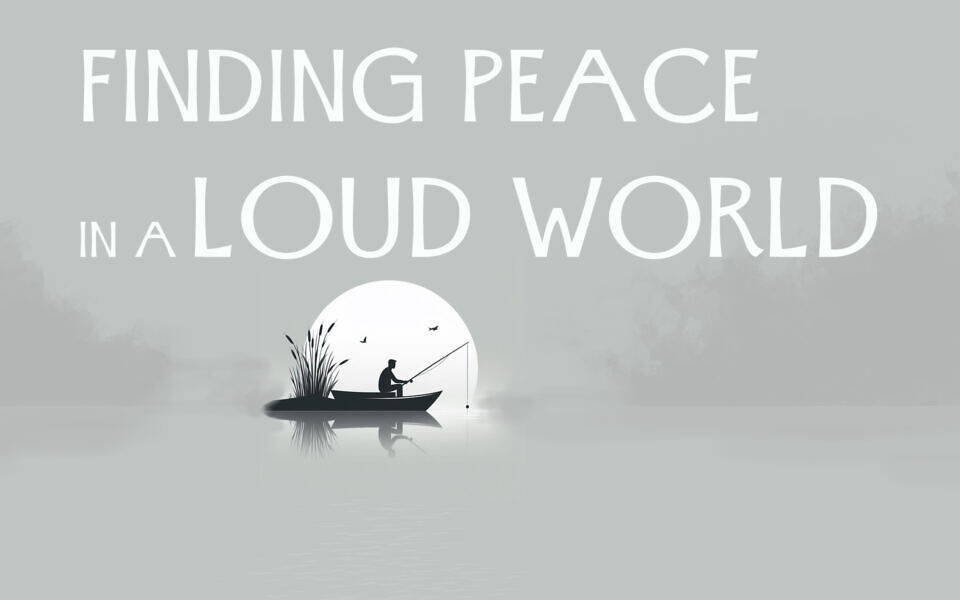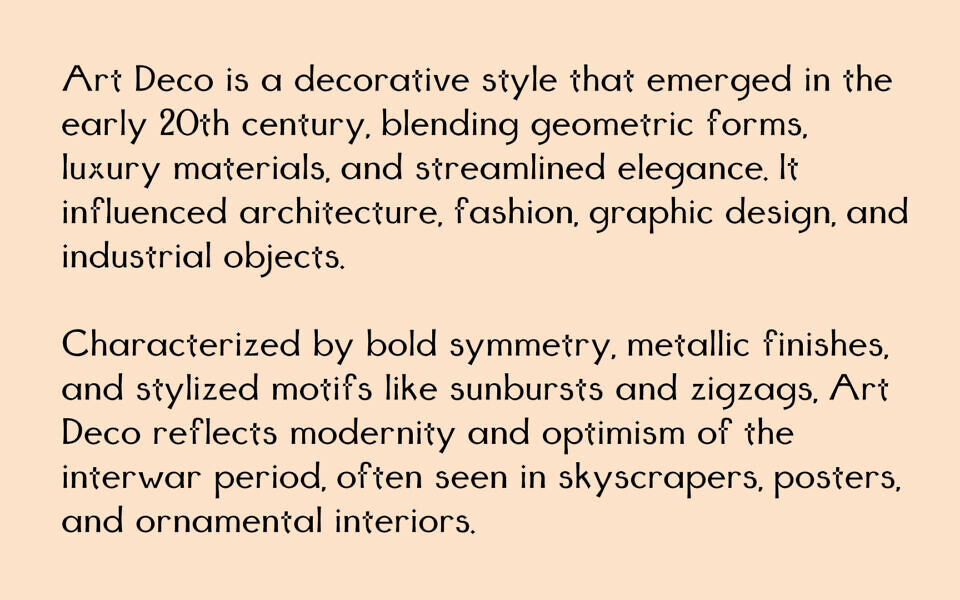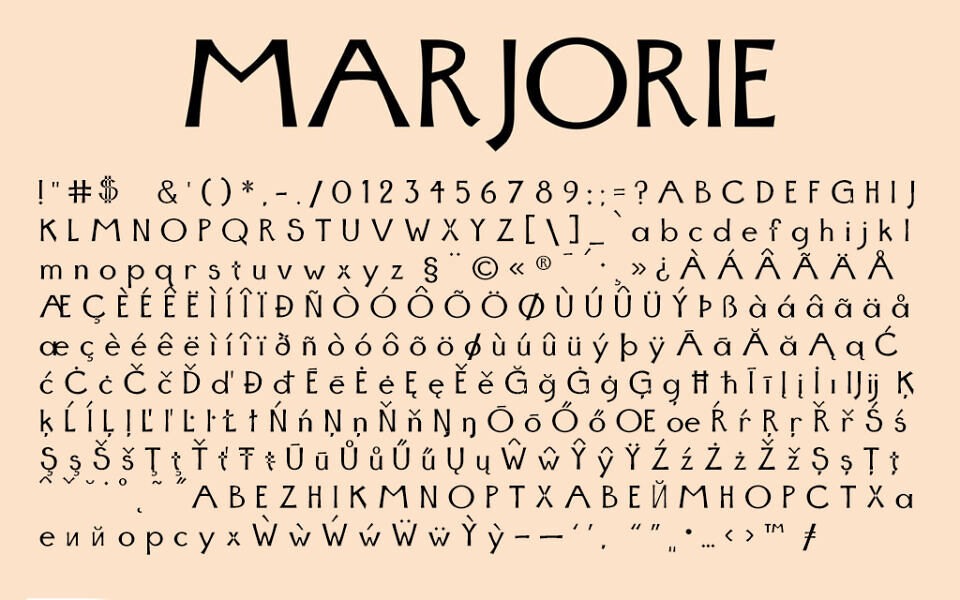
Marjorie is a geometric display typeface with Art Deco bones — high-waisted proportions, classical Roman skeletons, and clean monoline strokes. Drawn for headlines, posters, logotypes, and packaging, where a single confident voice carries the layout.
Includes One weight — Regular — with 460 glyphs covering:
- Uppercase and lowercase Latin (A–Z, a–z)
- Figures 0–9 and basic punctuation
- Accented Latin characters for Western European languages